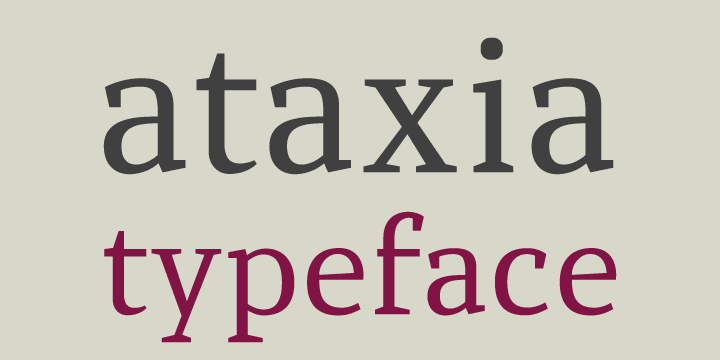
ataxia is a serif font family. This typeface has four styles and was published by Justi Design.
ataxia was designed to be used in long texts such as books and magazines. The font has the weights regular, bold, italic and bold italic as well as ligatures, small caps, oldstyle numbers and support for many languages, with more than 500 glyphs.